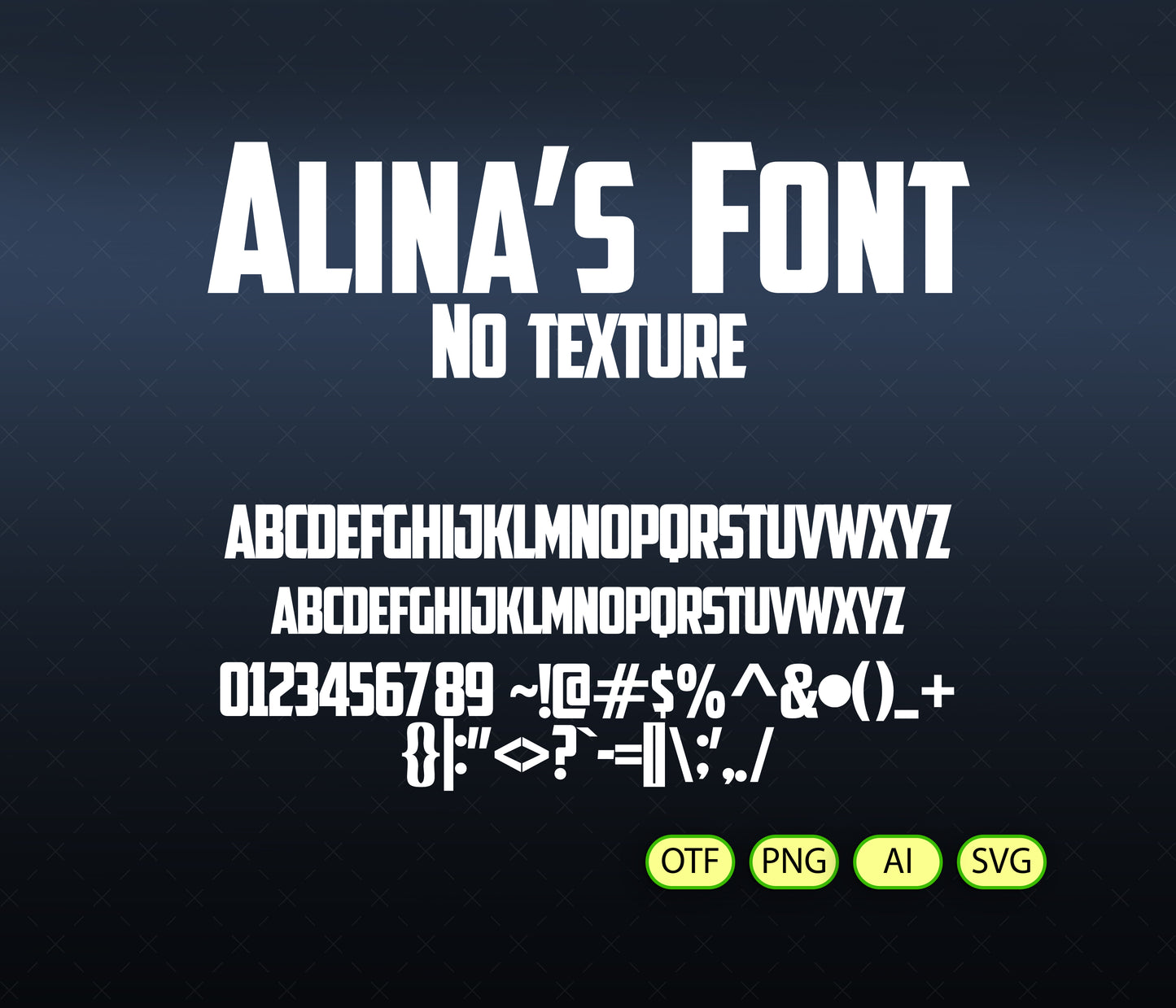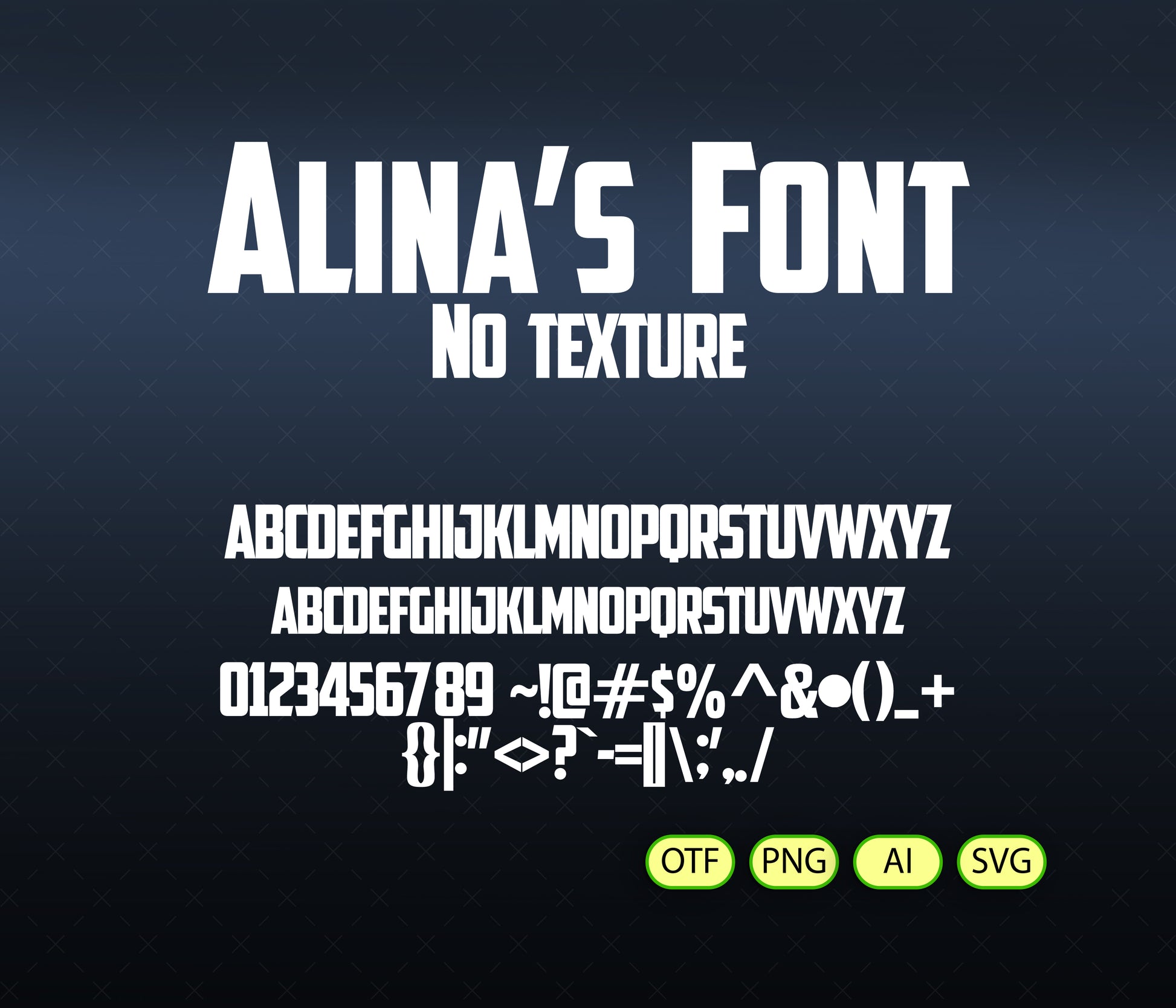
Patriotic Hero Bold Font
Patriotic Hero Bold Freedom Style
Step into the inspiring world of national pride and heroic valor with our Patriotic Hero font, capturing the essence of freedom fighters and courageous leadership. Perfect for military tribute creators, patriotic event planners, civic pride designers, and creative professionals, this font brings the strong, honorable spirit of legendary defender adventures to your projects. Create powerful invitations, patriotic merchandise, or digital content with the bold, freedom-loving energy of heroic guardian tales.
Our Patriotic Hero font features strong, commanding strokes and heroic characters reflecting the beautifully noble yet powerful aesthetic of freedom defender scenarios. Ideal for:
- Patriotic Events: Create attention-grabbing invites, posters, and banners for military tributes, freedom-themed experiences, and national pride gatherings
- Civic Design: Perfect for book covers, patriotic promotions, and liberty-themed accessories that capture patriotic hero essence
- Digital Media: Enhance websites, blogs, and social media with commanding headers and graphics that express honor and heroic spirit
- Memorial Content: Add authentic character to tribute materials, freedom designs, and promotional materials for civic honor events
- Personal Projects: Bring heroic charm to scrapbooking, DIY crafts, and home decor inspired by the aesthetics of patriotic defenders